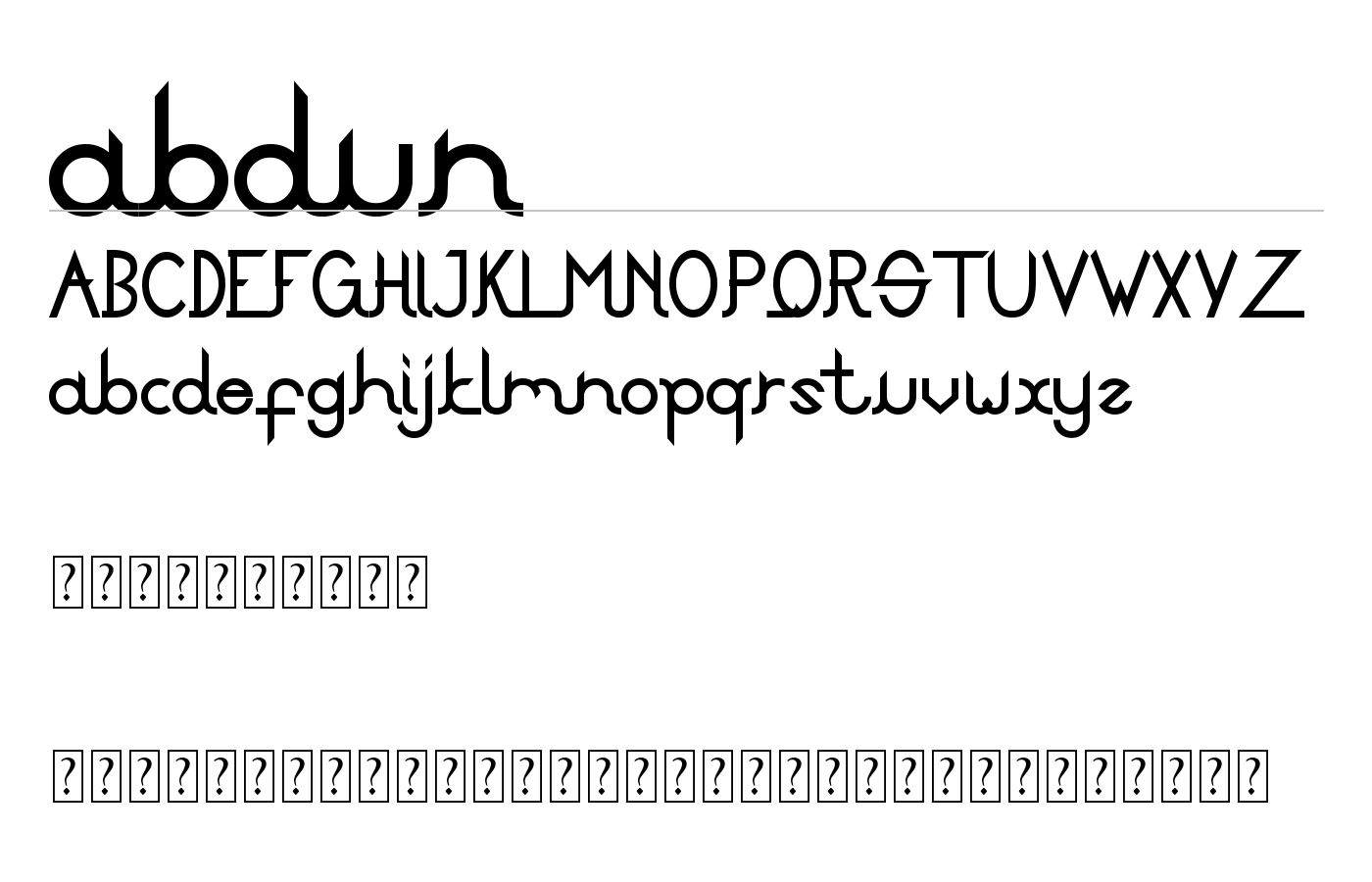
Abdun is a unique sans serif font with a modern, geometric feel marked by sharp angles and stylized letterforms. Its narrow width and consistent stroke weight create a sleek, futuristic look that works well for creative branding, headlines, and display use where a distinctive, tech-inspired personality is desired. This font stands out with its artistic character shapes, making it ideal for projects seeking a bold, modern edge.
abdun Font